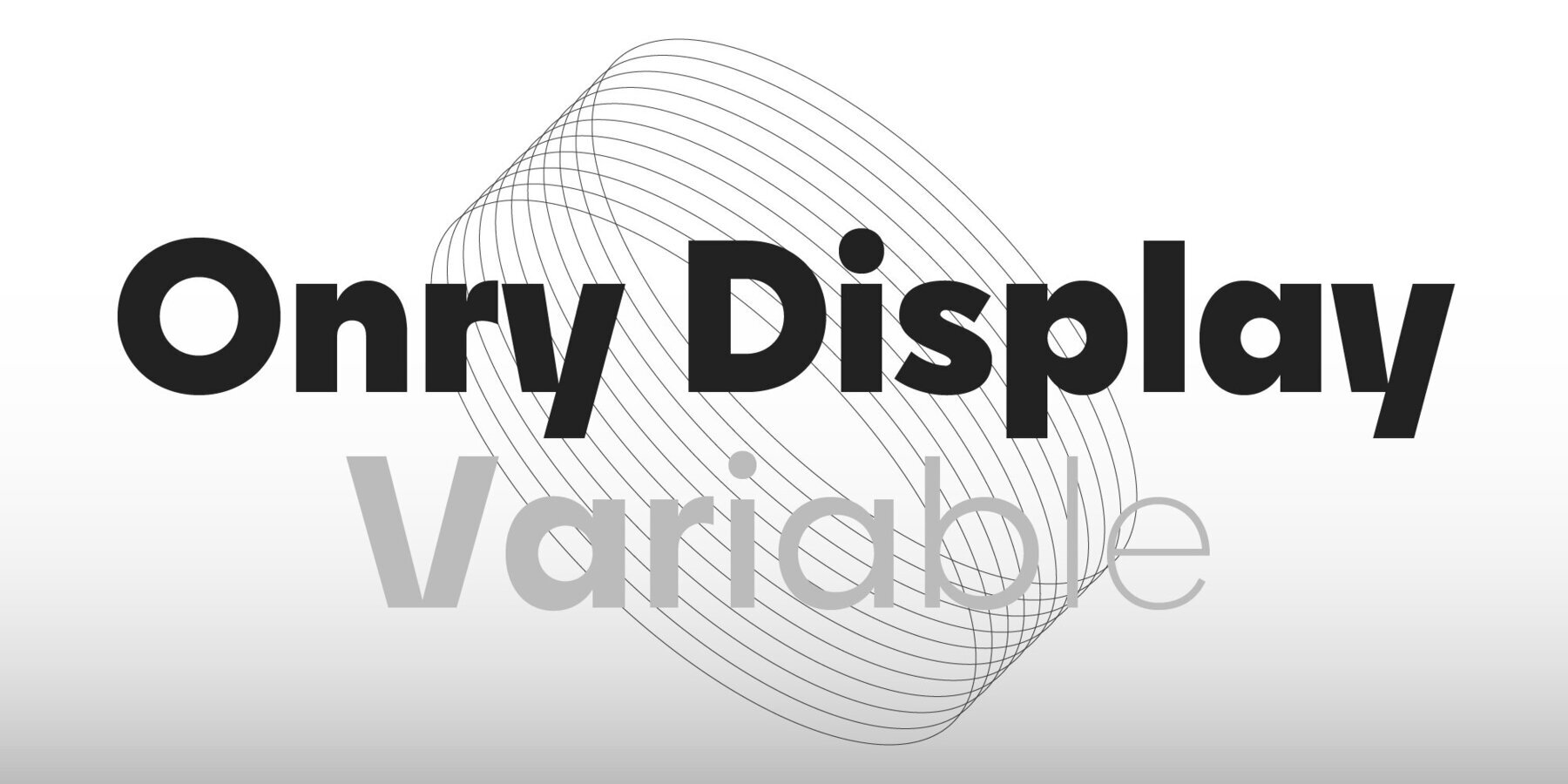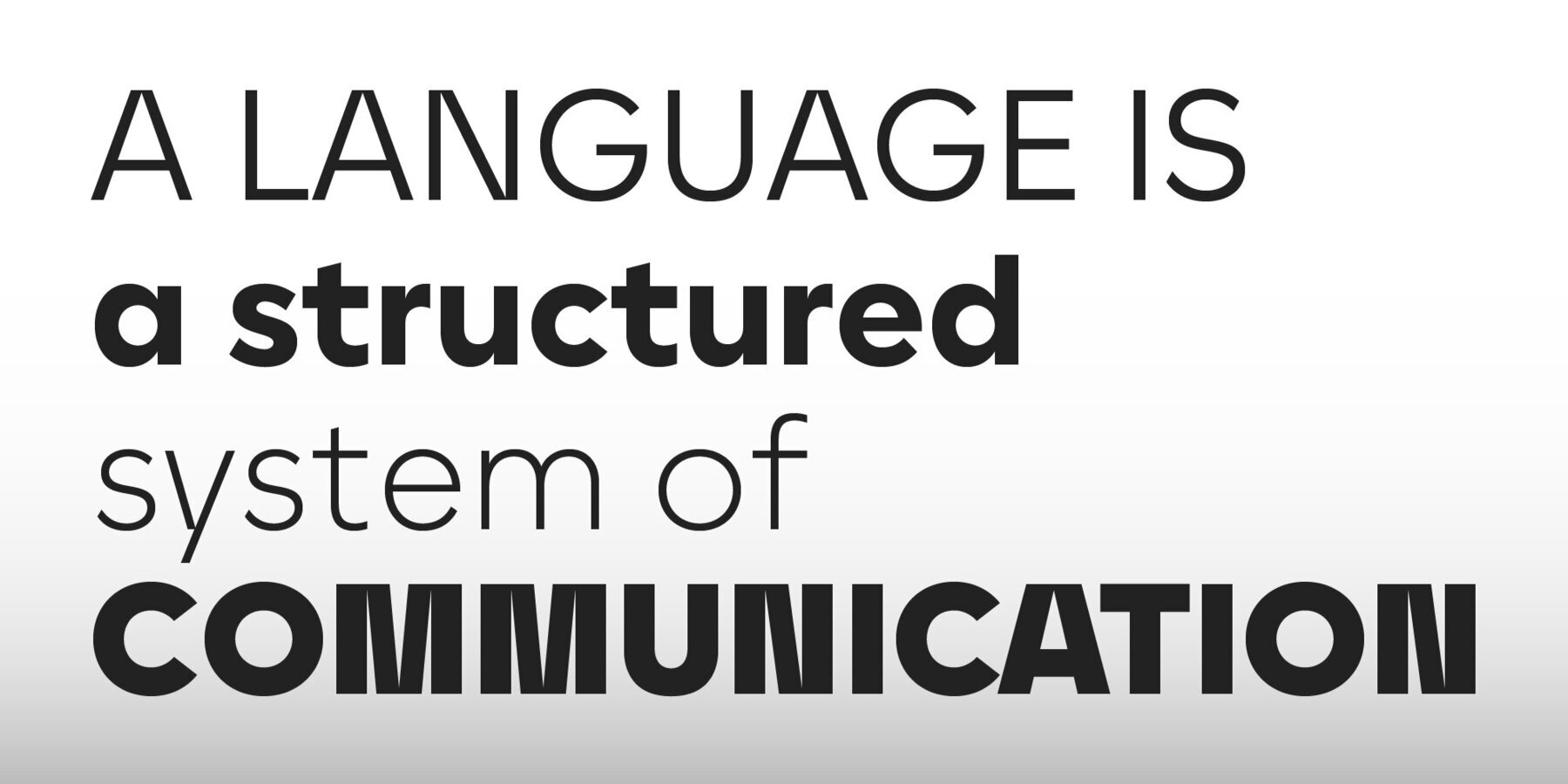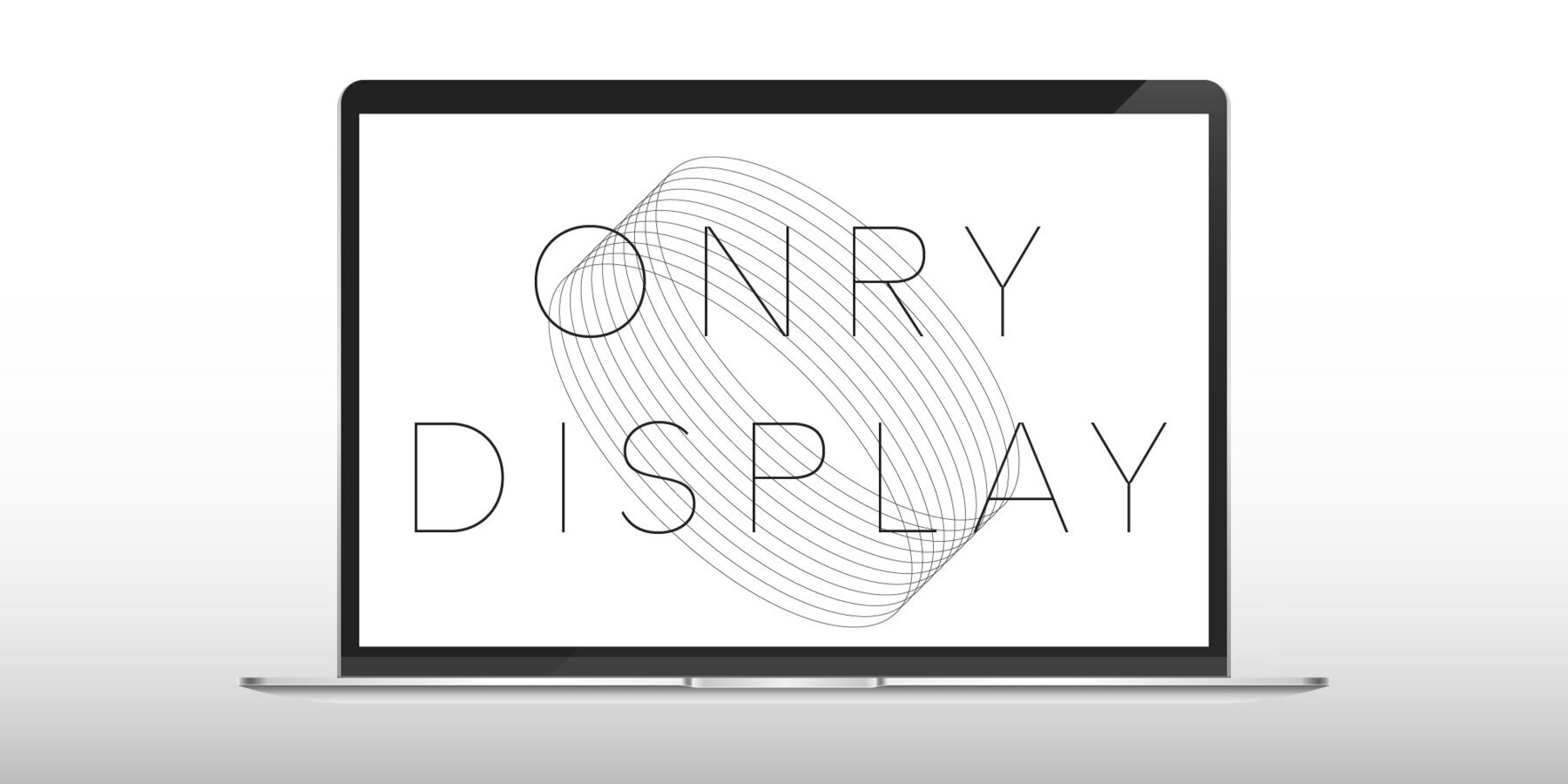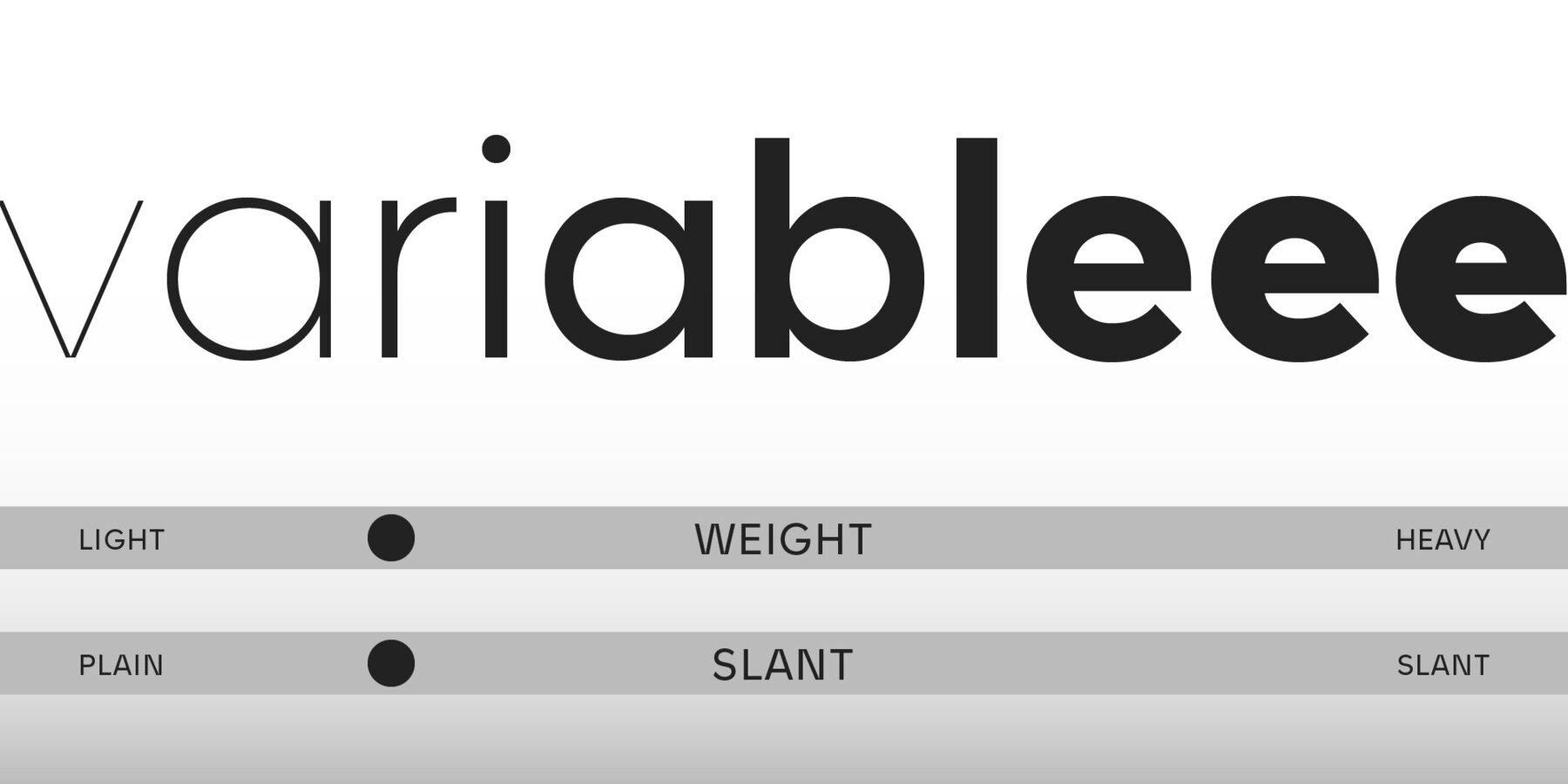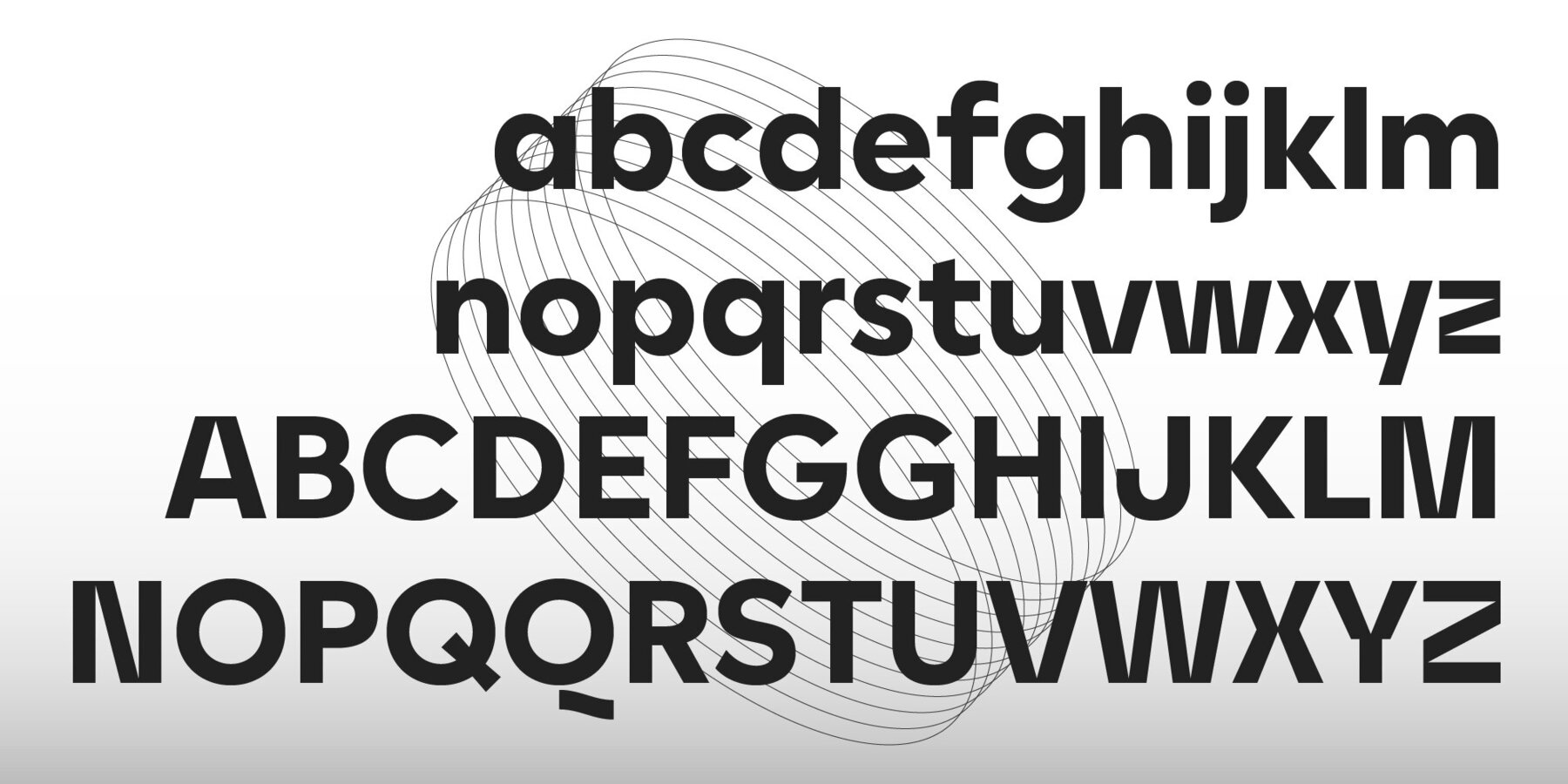
Onry Display Variable Font is the latest addition to the versatile Onry Display font family. This font offers great flexibility, making it excellent for both headline and body copy usage. Onry Display Variable Font ensures clarity in print materials and seamless reproduction on TV screens alike. Elevate your designs with the sophistication and versatility of Onry Display Variable Font.
Savchuk Mykola began his career as a graphic designer. Over time, he had a desire to create a font that would reflect his view of typography. ‘They say that all ingenious things are simple, although unique. In my future projects, I want to reflect simplicity on the one hand and uniqueness on the other, providi...